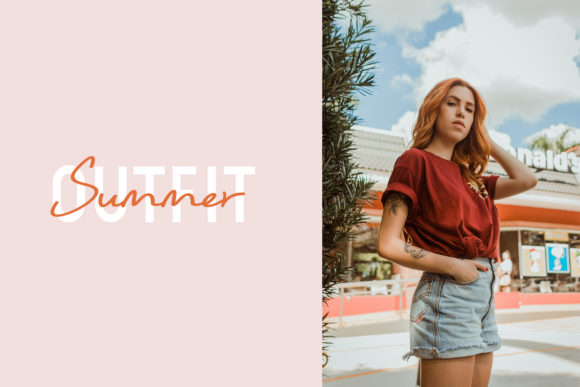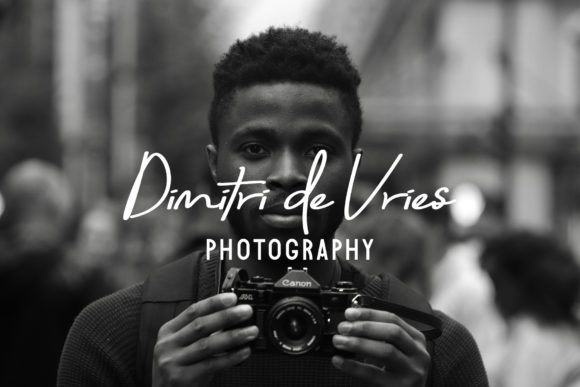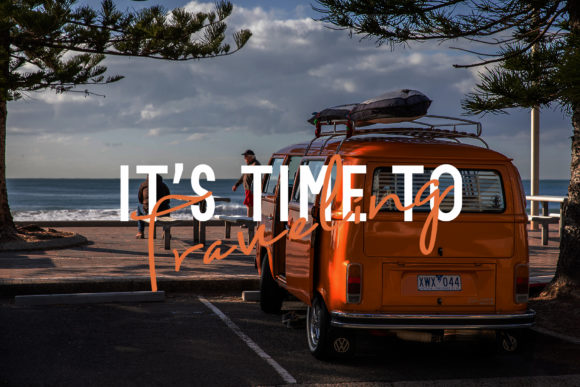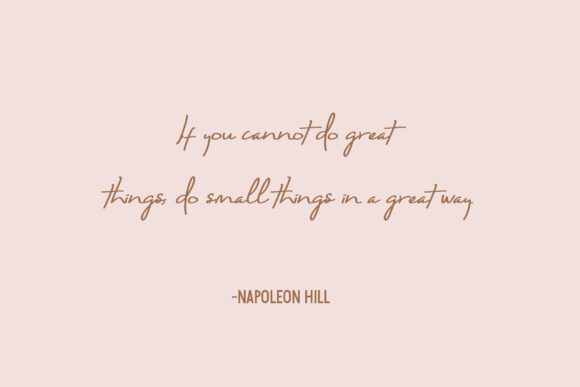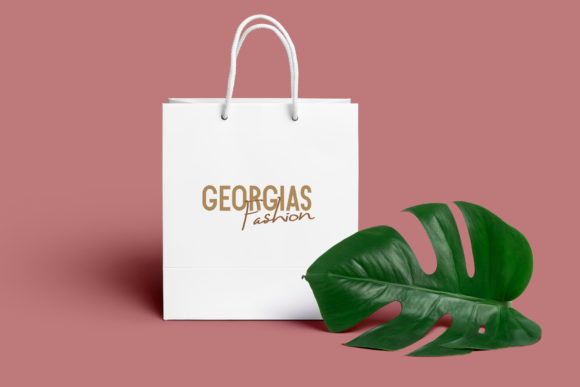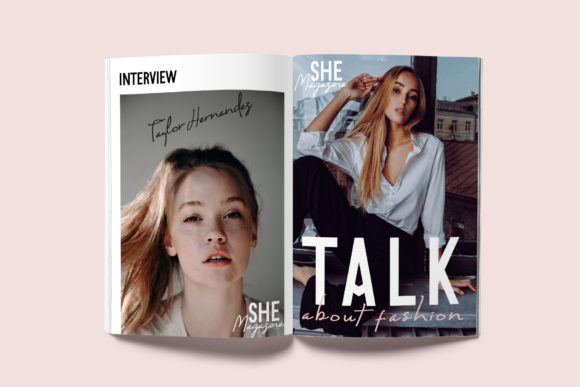
Introducing Bonjour De Jong Font: Elevate Your Designs with Elegance
Are you on the hunt for a font that exudes elegance, sophistication, and versatility? Look no further than the Bonjour De Jong Font, a stunning modern duo font that combines the beauty of script and sans serif styles. This gorgeous font is perfect for designers and crafters seeking to add a touch of luxury to their projects.
The Perfect Blend: Script and Sans Serif
Bonjour De Jong Font boasts a unique combination of script and sans serif styles, making it incredibly versatile and suitable for a wide range of design applications. The script font is elegant and flowing, perfect for adding a touch of sophistication to your designs. Meanwhile, the sans serif font provides a clean and modern contrast, allowing for effortless readability. This harmonious blend of styles makes Bonjour De Jong Font an excellent choice for various design projects.
The possibilities are endless with Bonjour De Jong Font. Its stunning combination of script and sans serif styles makes it perfect for:
- Wedding invitations: Add a touch of elegance and romance to your wedding stationery with Bonjour De Jong Font.
- Thank you cards: Express your gratitude in style with this beautiful font.
- Quotes: Make your quotes stand out with the elegant script style of Bonjour De Jong Font.
- Greeting cards: Create stunning greeting cards for any occasion, from birthdays to holidays.
- Logos: Use Bonjour De Jong Font to create a sophisticated and memorable logo for your brand.
- Business cards: Elevate your business cards with a touch of elegance and professionalism.
Why Choose Bonjour De Jong Font?
So, what sets Bonjour De Jong Font apart from other fonts? Here are just a few reasons why designers and crafters love this font:
- Unique combination of styles: The blend of script and sans serif styles makes Bonjour De Jong Font truly unique and versatile.
- Elegant and sophisticated: This font exudes elegance and sophistication, perfect for high-end designs.
- Easy to read: The sans serif font provides excellent readability, making it perfect for body text.
- High-quality design: Bonjour De Jong Font is designed with precision and attention to detail, ensuring a high-quality finish.
Tips for Using Bonjour De Jong Font
To get the most out of Bonjour De Jong Font, here are a few tips:
- Mix and match: Experiment with different combinations of script and sans serif styles to create visual interest.
- Play with sizes: Use different font sizes to create hierarchy and emphasis in your designs.
- Add embellishments: Consider adding embellishments, such as flourishes or graphics, to enhance your designs.
Bonjour De Jong Font is a stunning modern duo font that offers a unique combination of script and sans serif styles. Its elegance, sophistication, and versatility make it perfect for a wide range of design applications. Whether you’re a designer or crafter, this font is sure to elevate your projects and add a touch of luxury. So why wait? Download Bonjour De Jong Font today and start creating stunning designs!